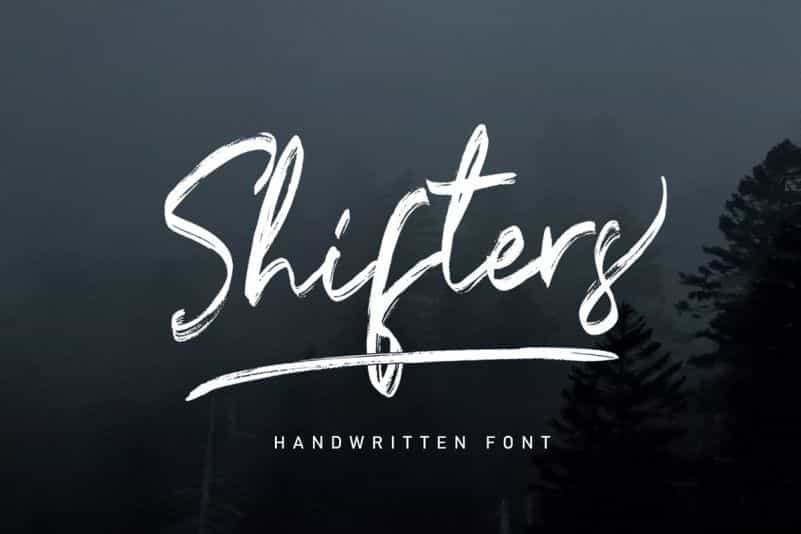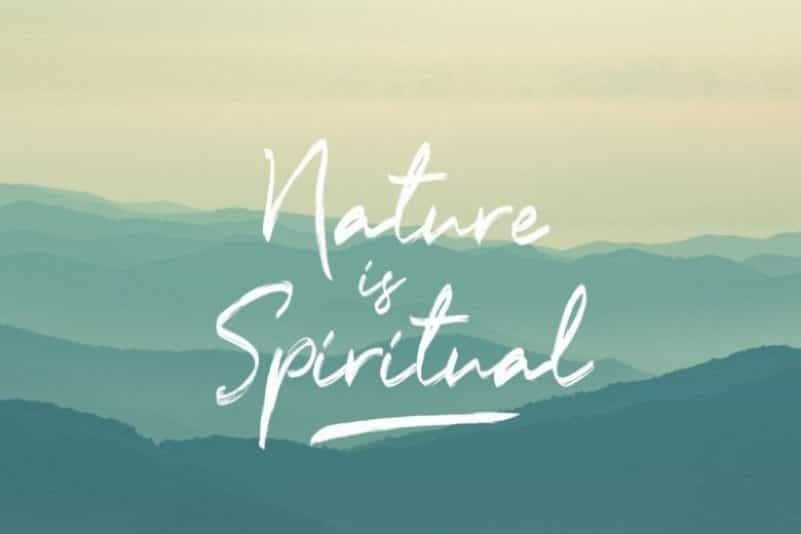
The Shifters Font is a dry hand-brushed font style that was developed to work in great combination and create awesome hand-lettering fast and easy. Perfect for logos, handwritten quotes, product packaging, header, poster, merchandise, social media & greeting cards.